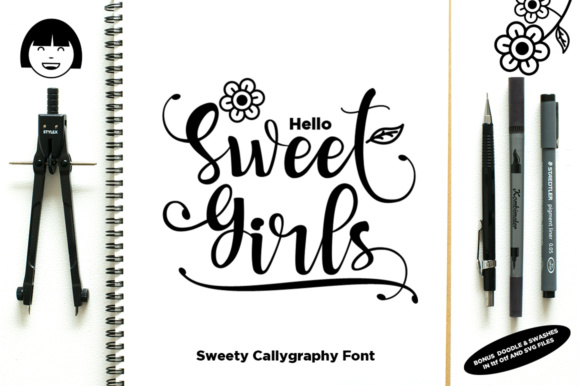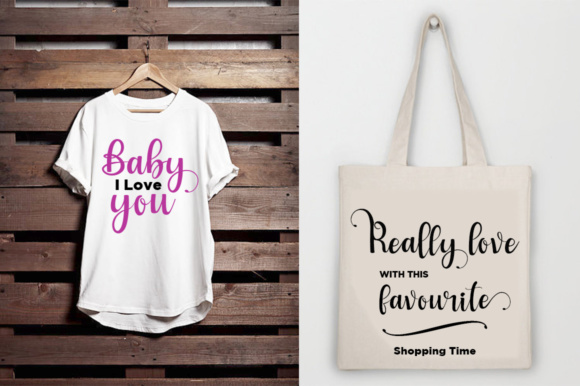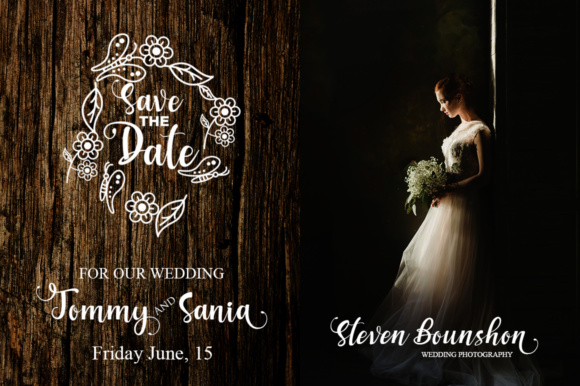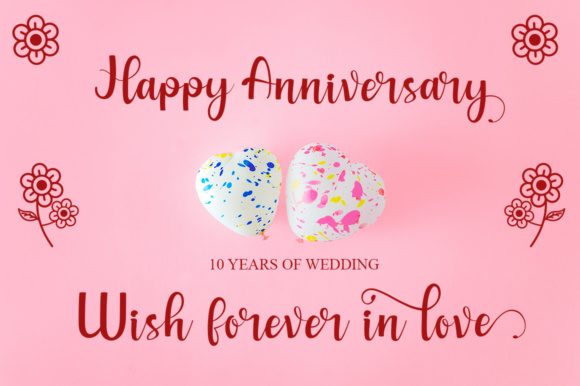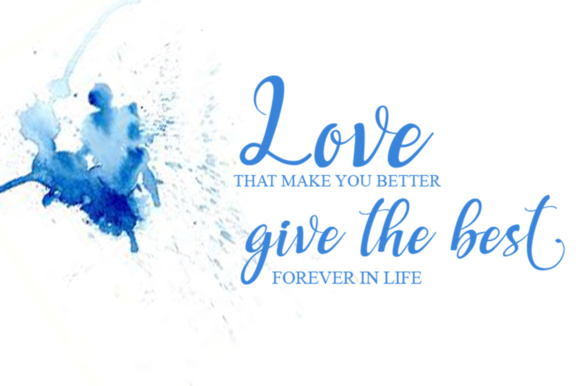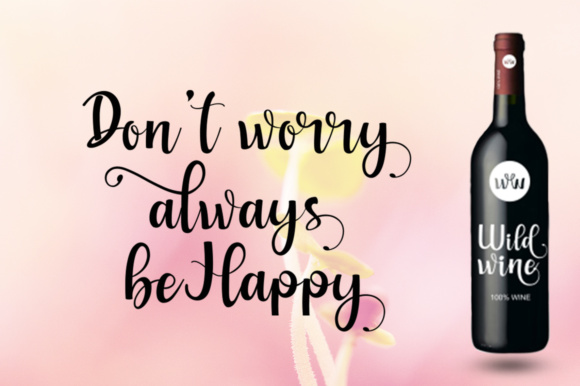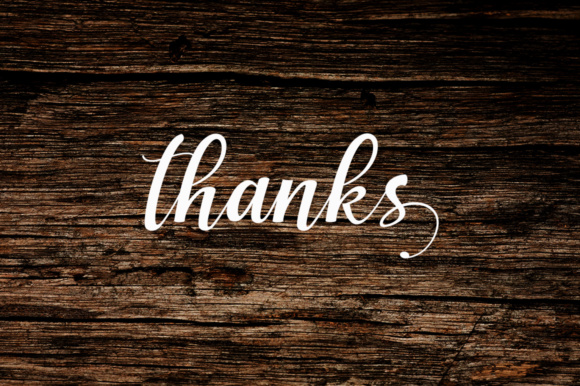
Sweet Girls Font
About Sweet Girls Font
Sweet Girls is a sugary sweet font, ideal for girly themes and more! This font comes with cute icons so your designs can easily have a completed look and feel.